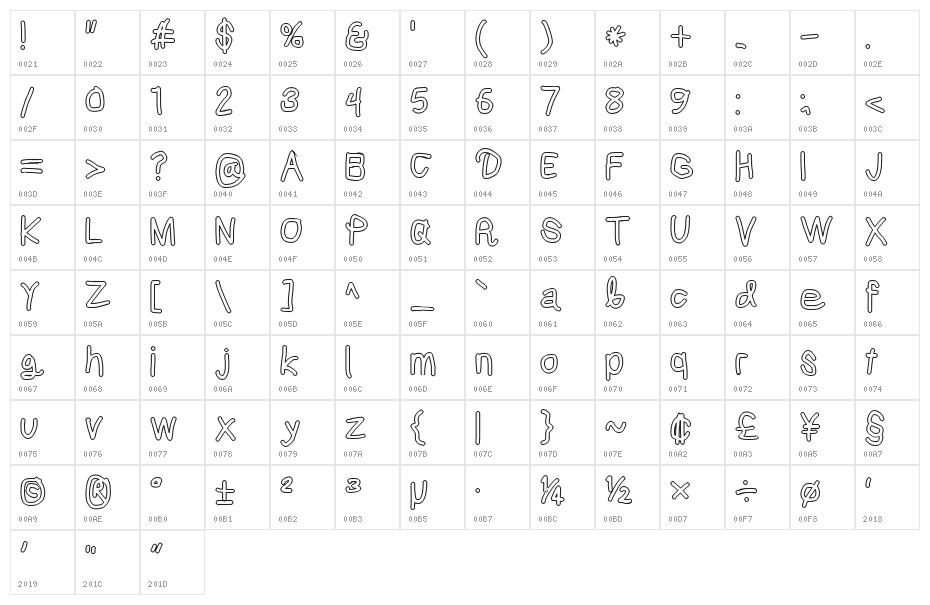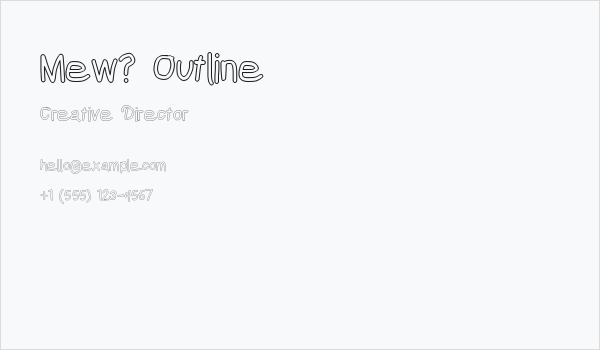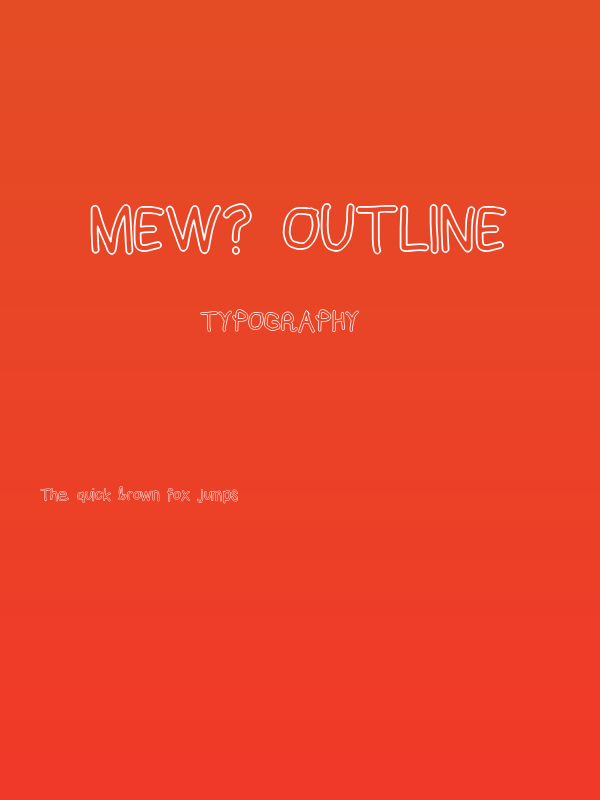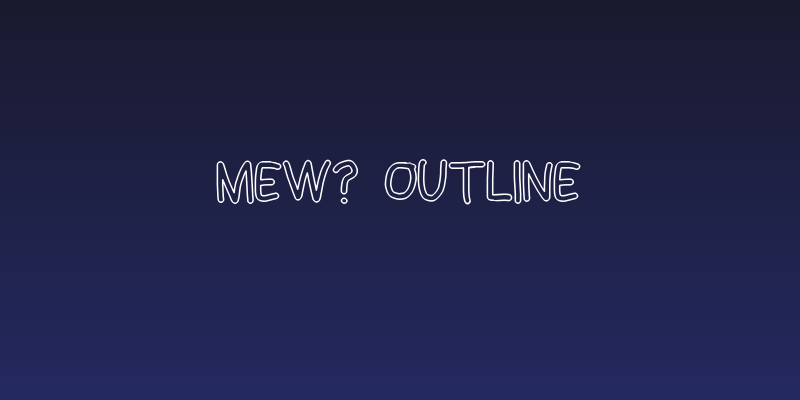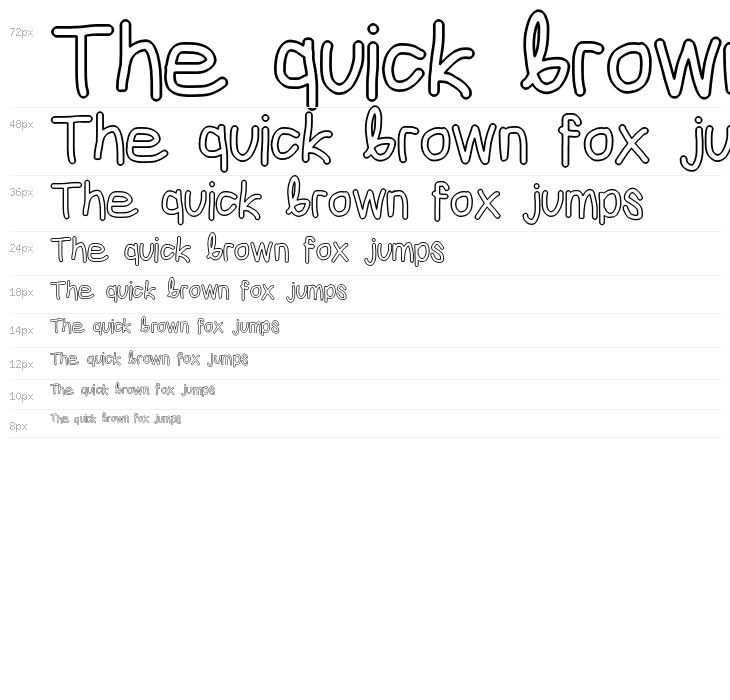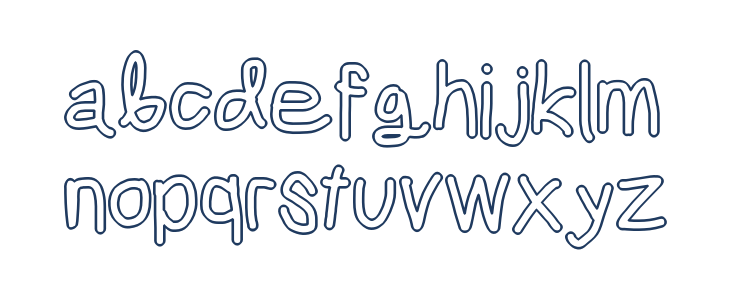
Mew? Outline Font
Mew? Outline Description
This playful and whimsical font features an outline style that gives it a unique and eye-catching appearance. The characters are rounded and slightly irregular, adding a hand-drawn feel that is both approachable and fun. The uppercase and lowercase letters maintain a consistent style, with smooth curves and a casual flow. Numbers and special characters are equally engaging, making this font versatile for various creative projects. Its outline design allows for easy layering with colors or textures, enhancing its visual appeal.
| Overall Style | Whimsical |
| Proposed Projects | Ideal for children's books, playful branding, greeting cards, and creative posters. |